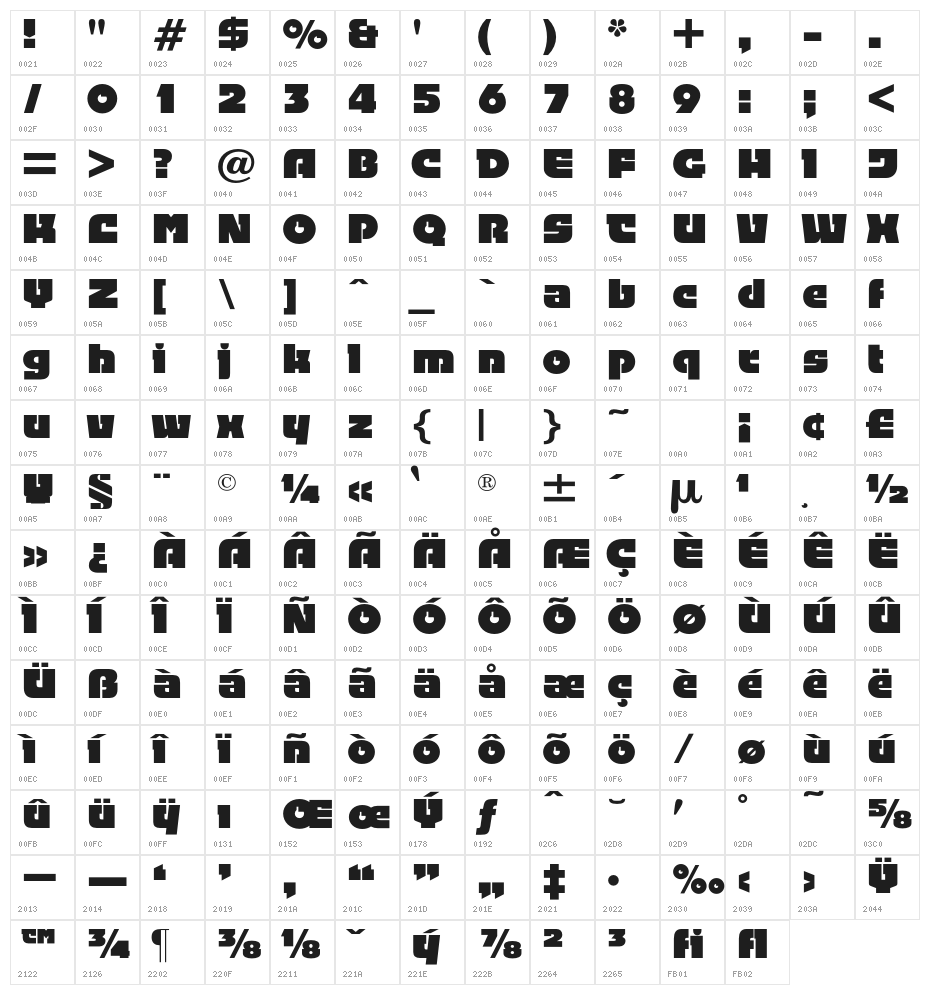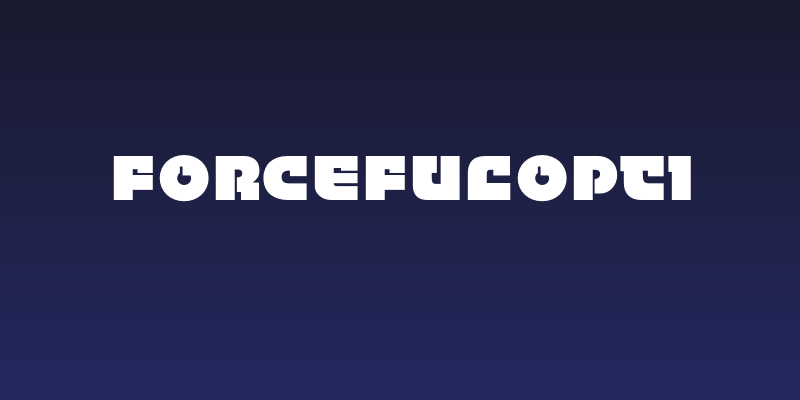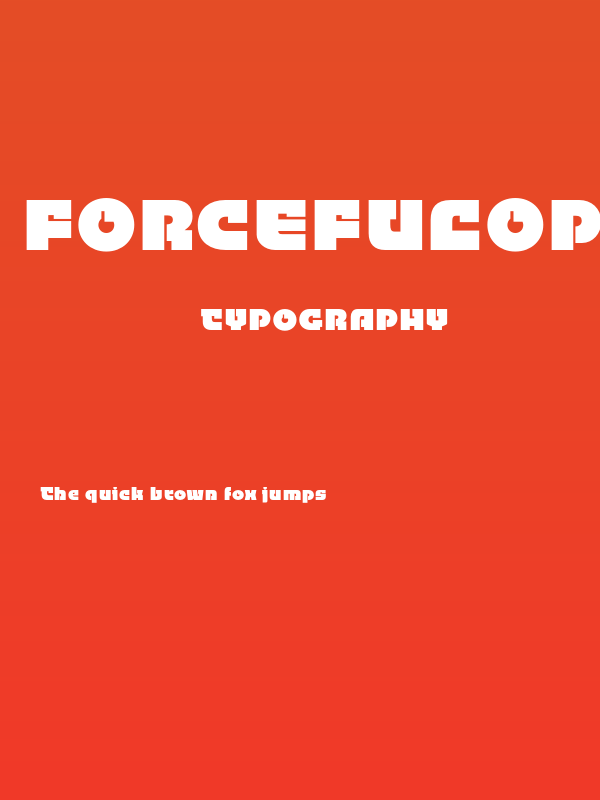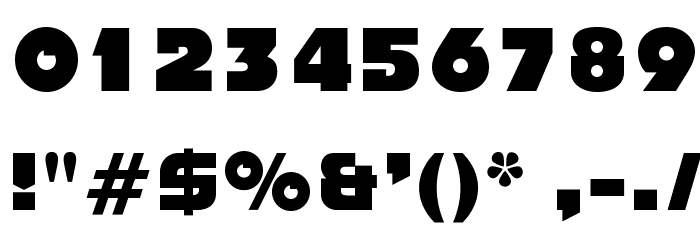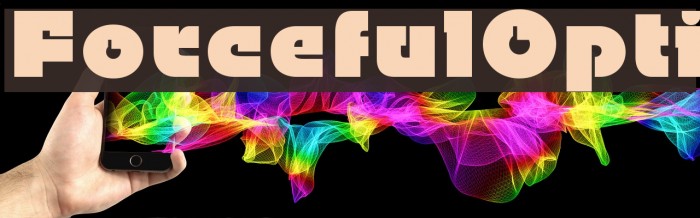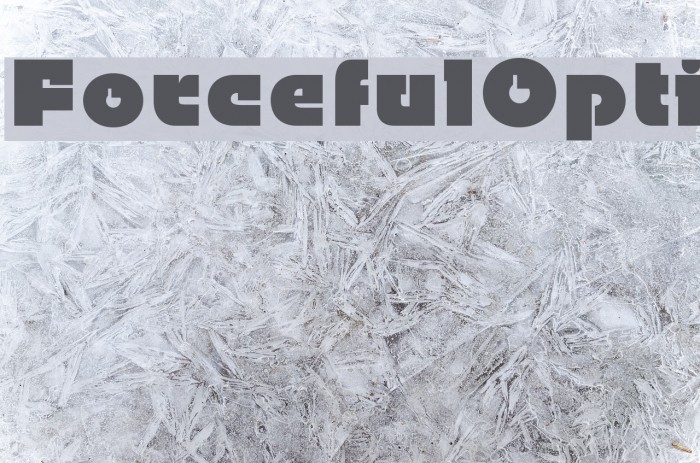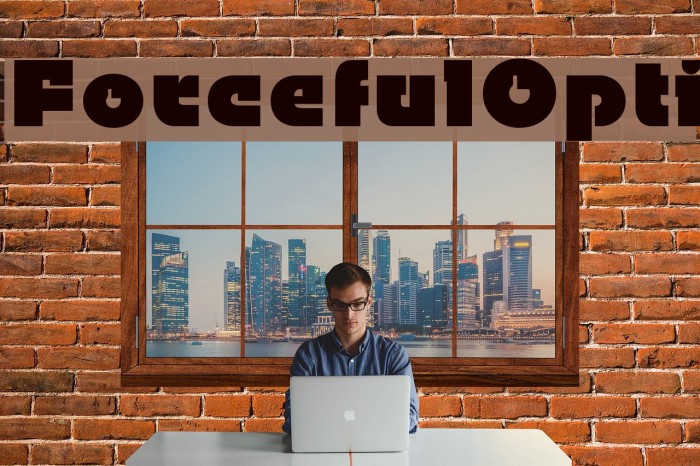
ForcefulOpti Font
ForcefulOpti Description
This bold and impactful font features strong geometric shapes with a heavy weight, making it ideal for attention-grabbing designs. The characters are constructed with thick, uniform strokes, creating a sense of power and stability. The uppercase and lowercase letters maintain a consistent style, with rounded edges that soften the overall appearance. The numerals and special characters follow the same robust design, ensuring a cohesive look across all text elements. Its bold presence makes it suitable for projects that require a strong visual impact.
| Proposed Projects | Ideal for posters, headlines, branding, and any design requiring a strong visual impact. |